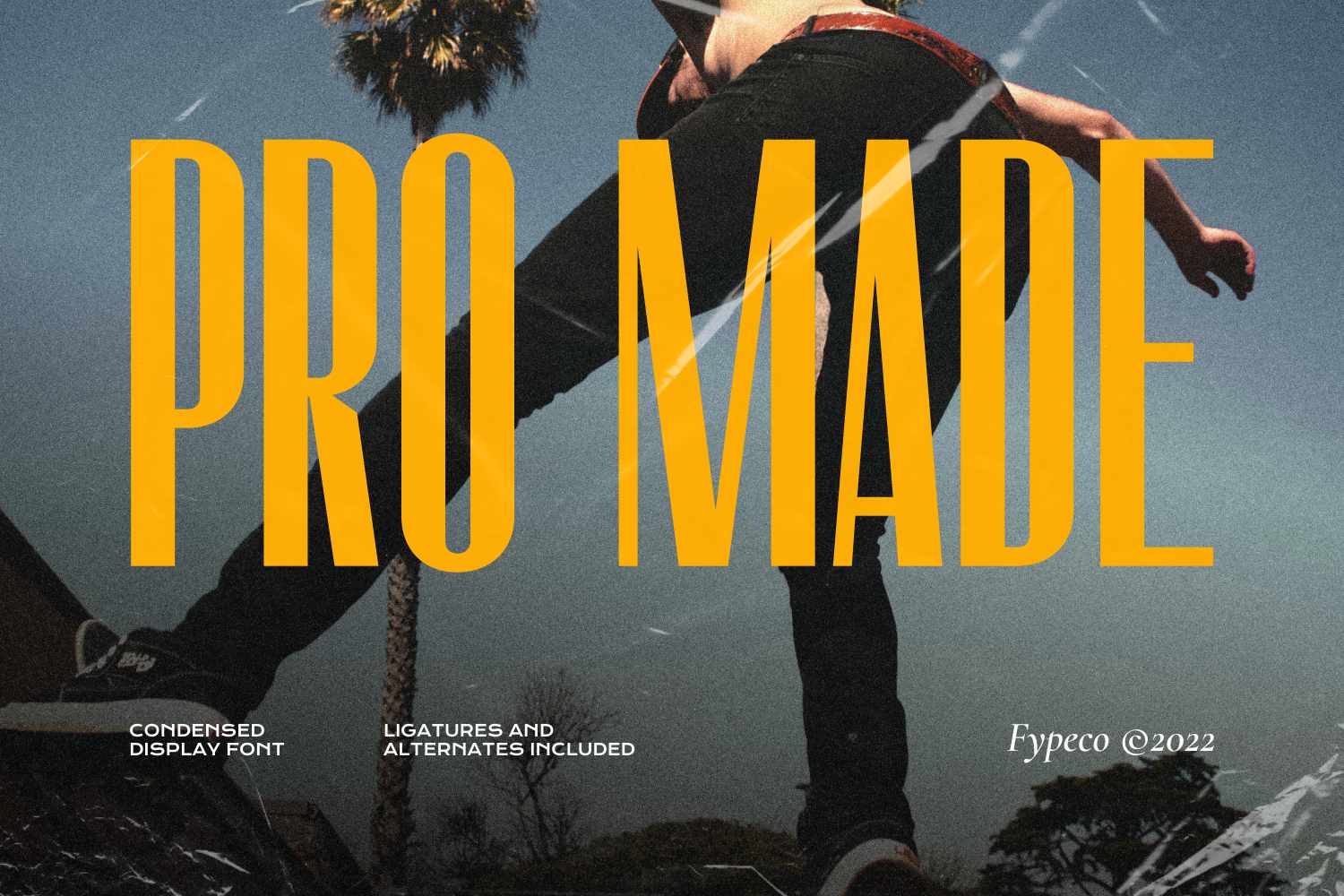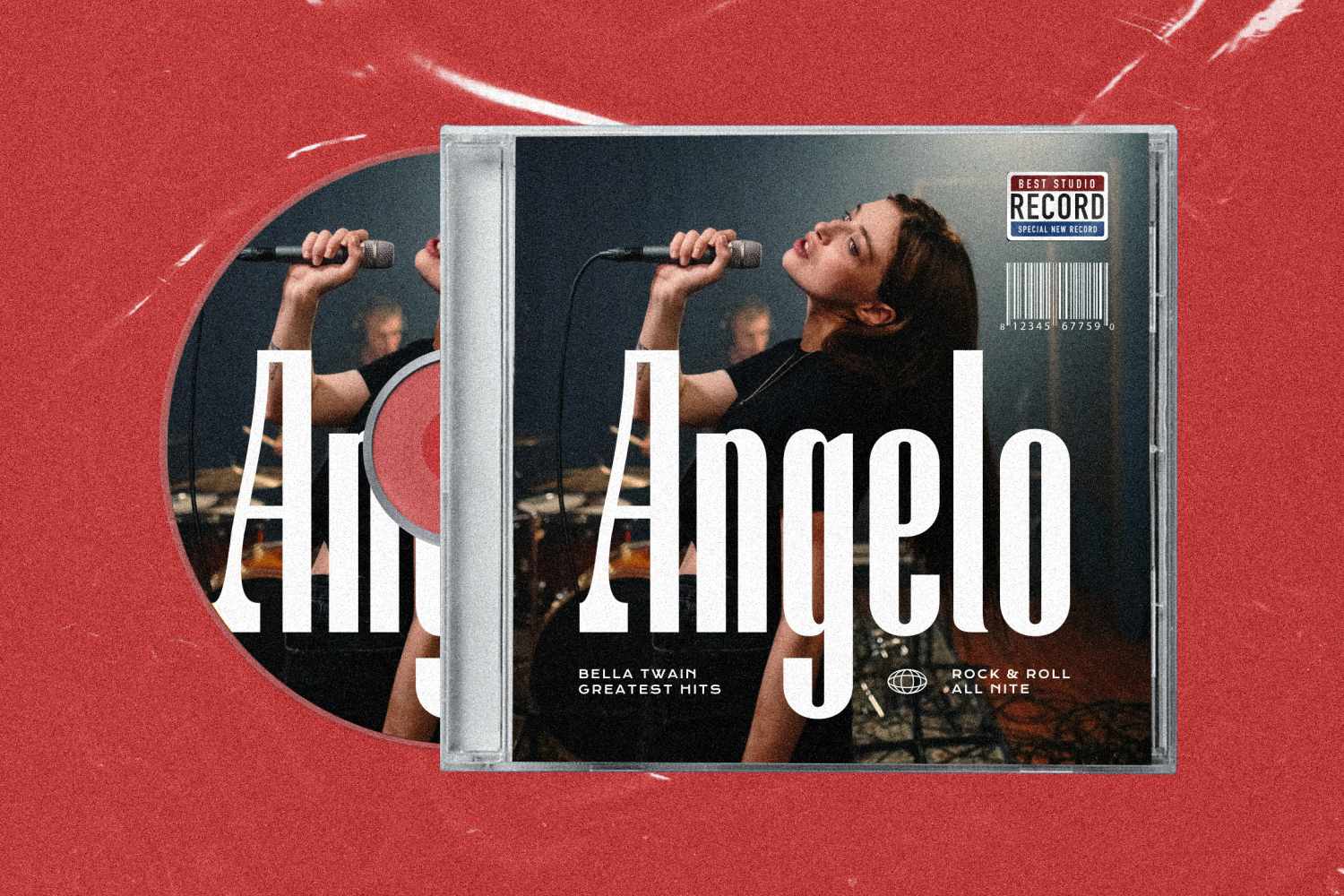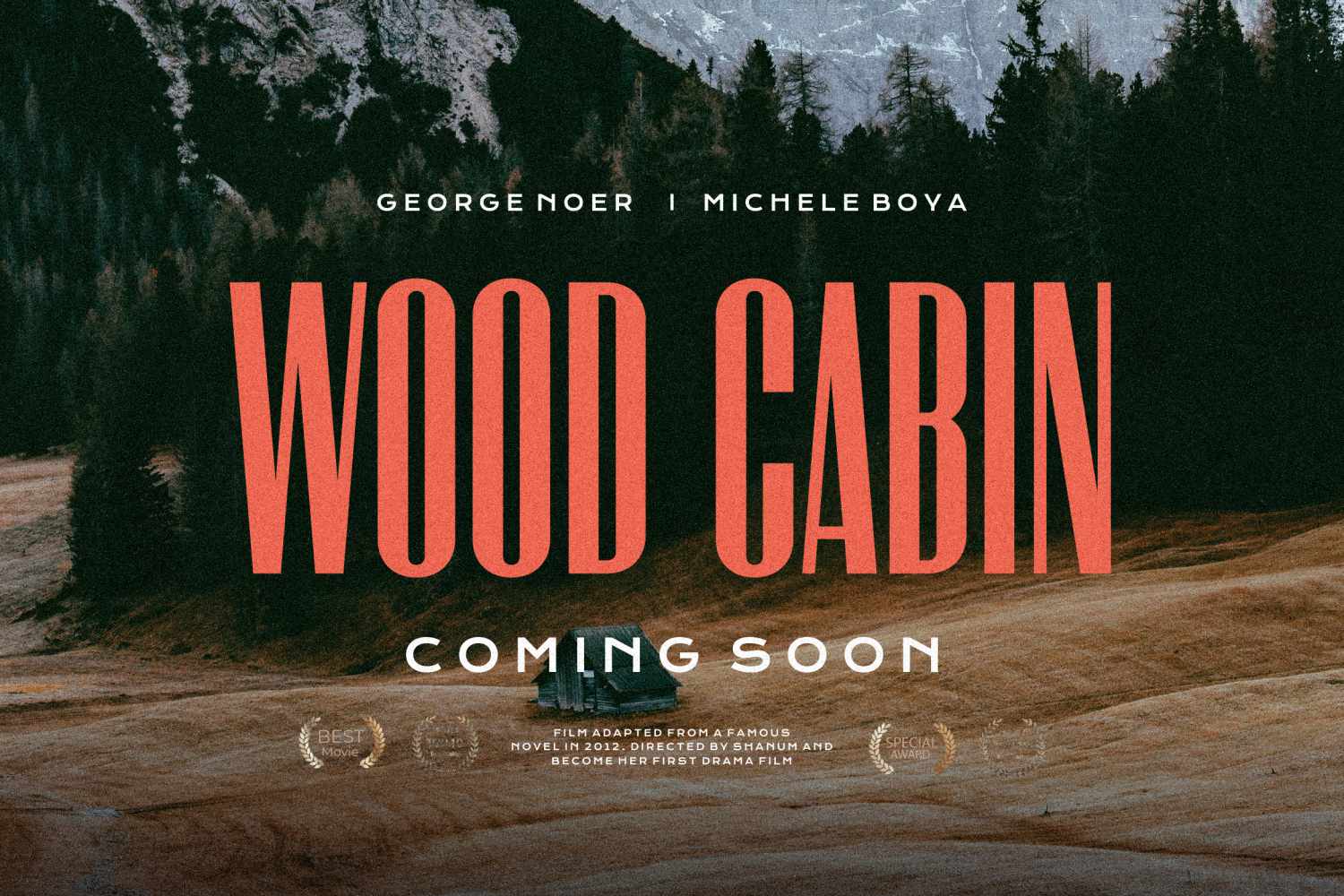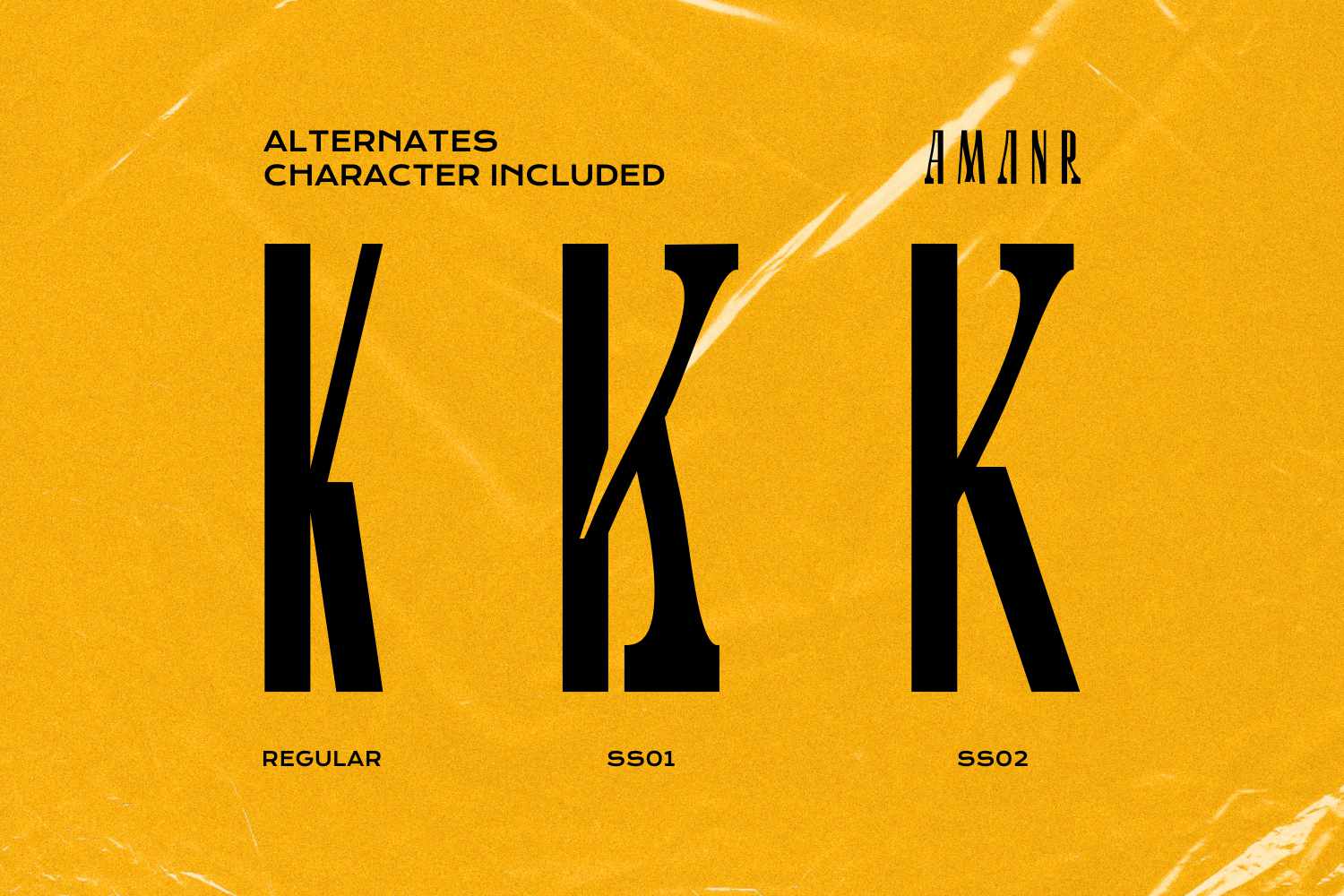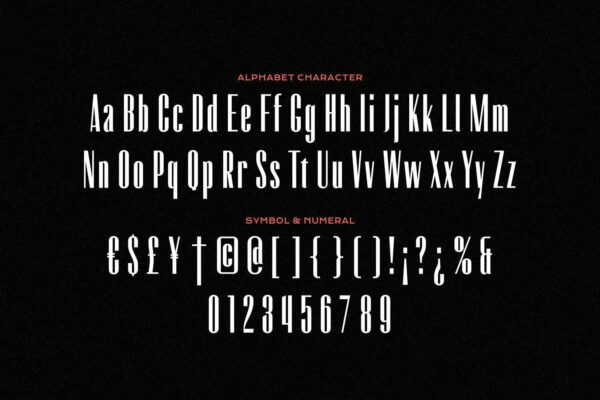
This font is a bold and modern condensed display typeface with a sleek vertical emphasis and striking alternates. Its tall letterforms exude confidence and elegance, making it perfect for impactful headlines, posters, music covers, and branding projects that require a sophisticated yet contemporary aesthetic. The unique alternates and ligatures add versatility, giving designers room to explore creative compositions while maintaining a cohesive look.
Designed to stand out, this typeface blends modern minimalism with a stylish, high-fashion vibe. Its clean lines, sharp details, and extended proportions make it suitable for luxury branding, film titles, editorial layouts, and creative promotions. Whether used in uppercase for bold statements or paired with alternates for a refined look, this font ensures every design feels powerful and memorable.
Pro Made